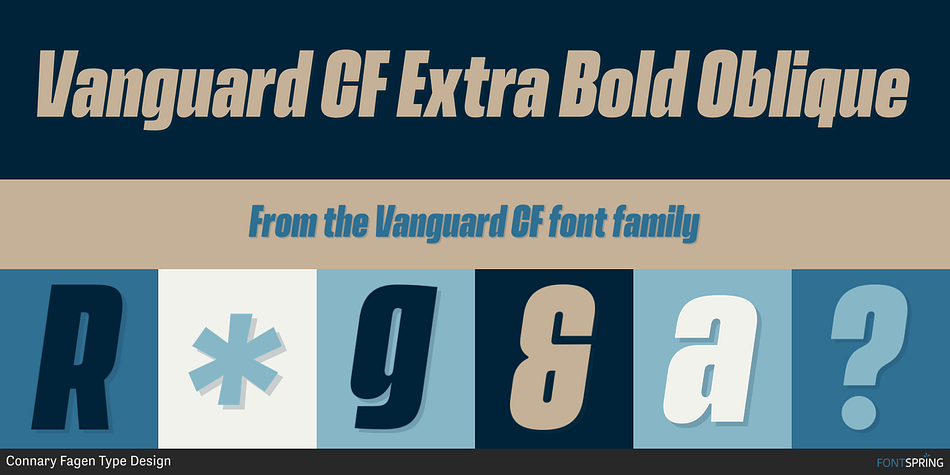
VANGUARD CF EXTRA BOLD OBLIQUE
Designed by Connary Fagen, Vanguard CF is a display sans font family. This typeface has sixteen styles and was published by Connary Fagen Type Design.
Vanguard CF is a powerful and elegant display typeface, constructed to maximize horizontal space. Built from sketches originally drawn in 2012, Vanguard’s eight weights span an elegant Thin to an arresting Heavy, with accompanying obliques. As with its sibling Integral CF, Vanguard makes a strong impression in print, headlines, video, and social media – whether paired with a contrasting typeface or on its own.
• Eight weights
• Roman and Oblique sets
• Extensive Latin script support
• Advanced OpenType features